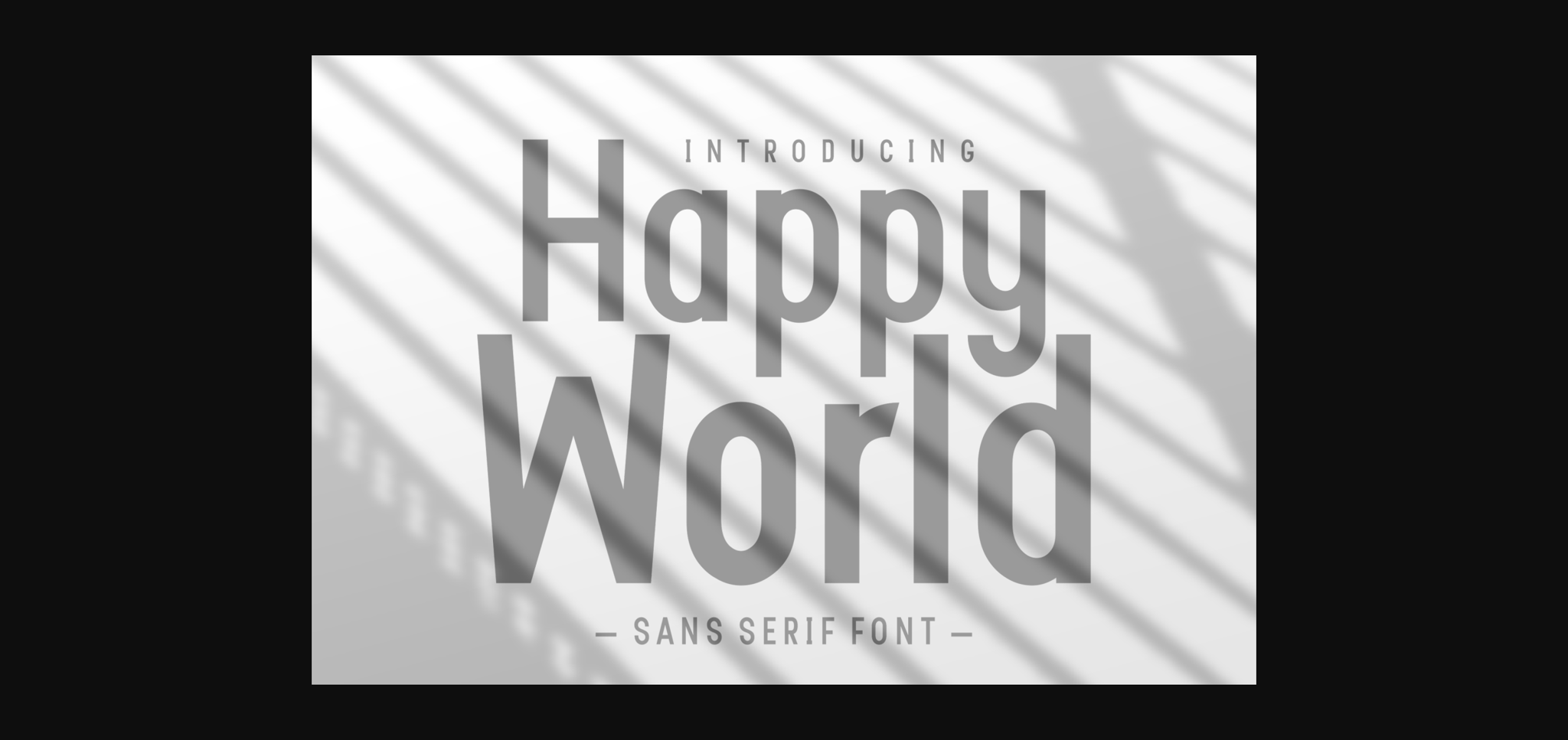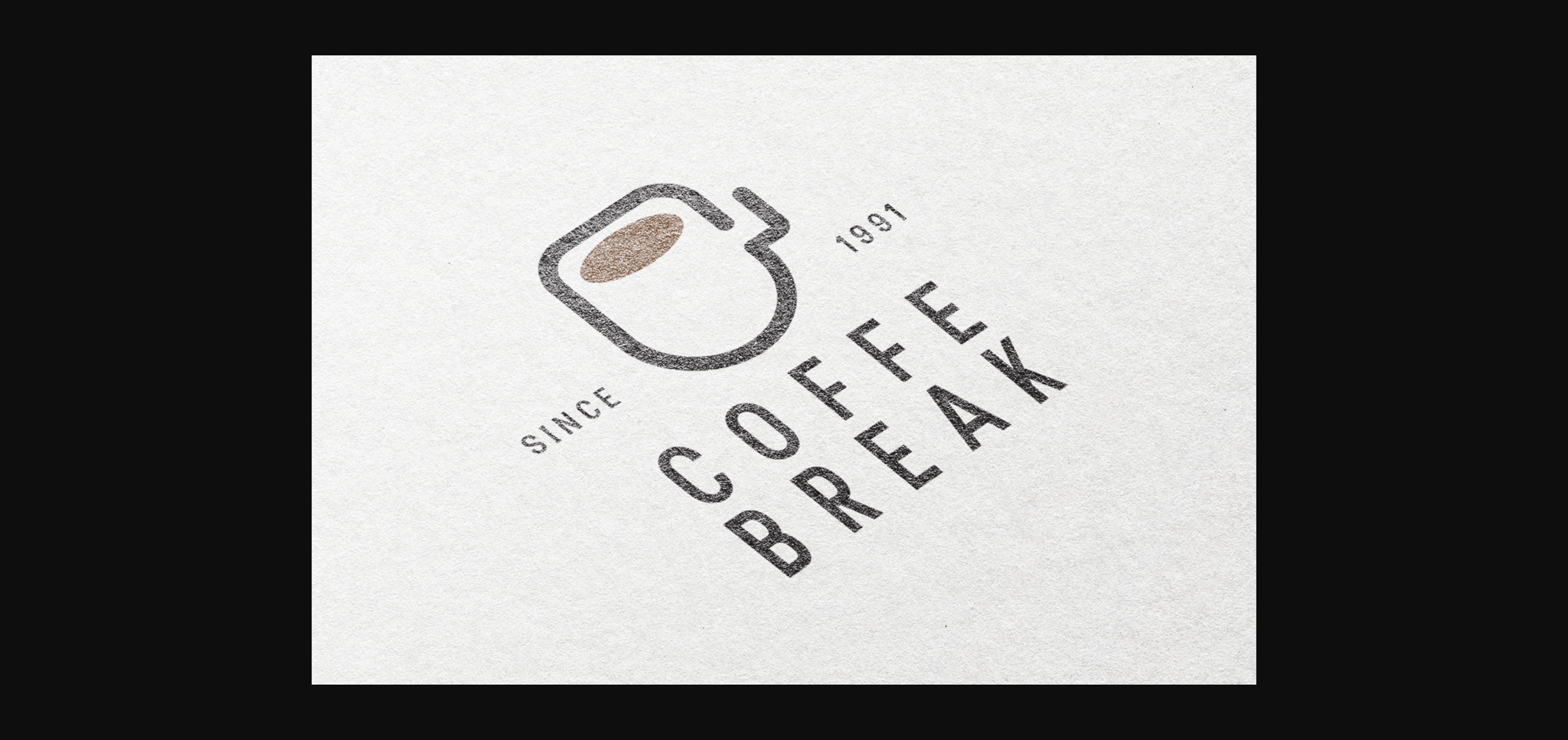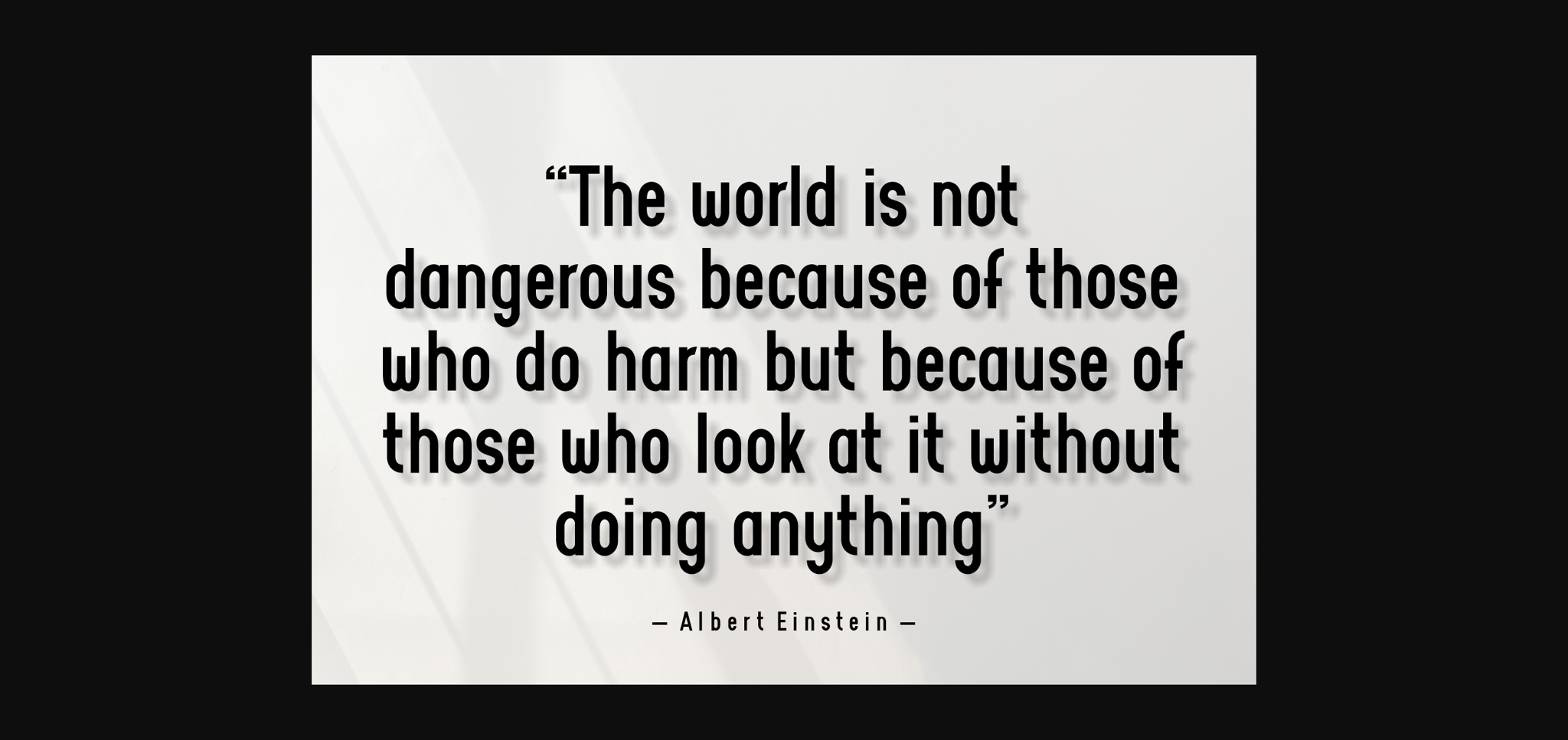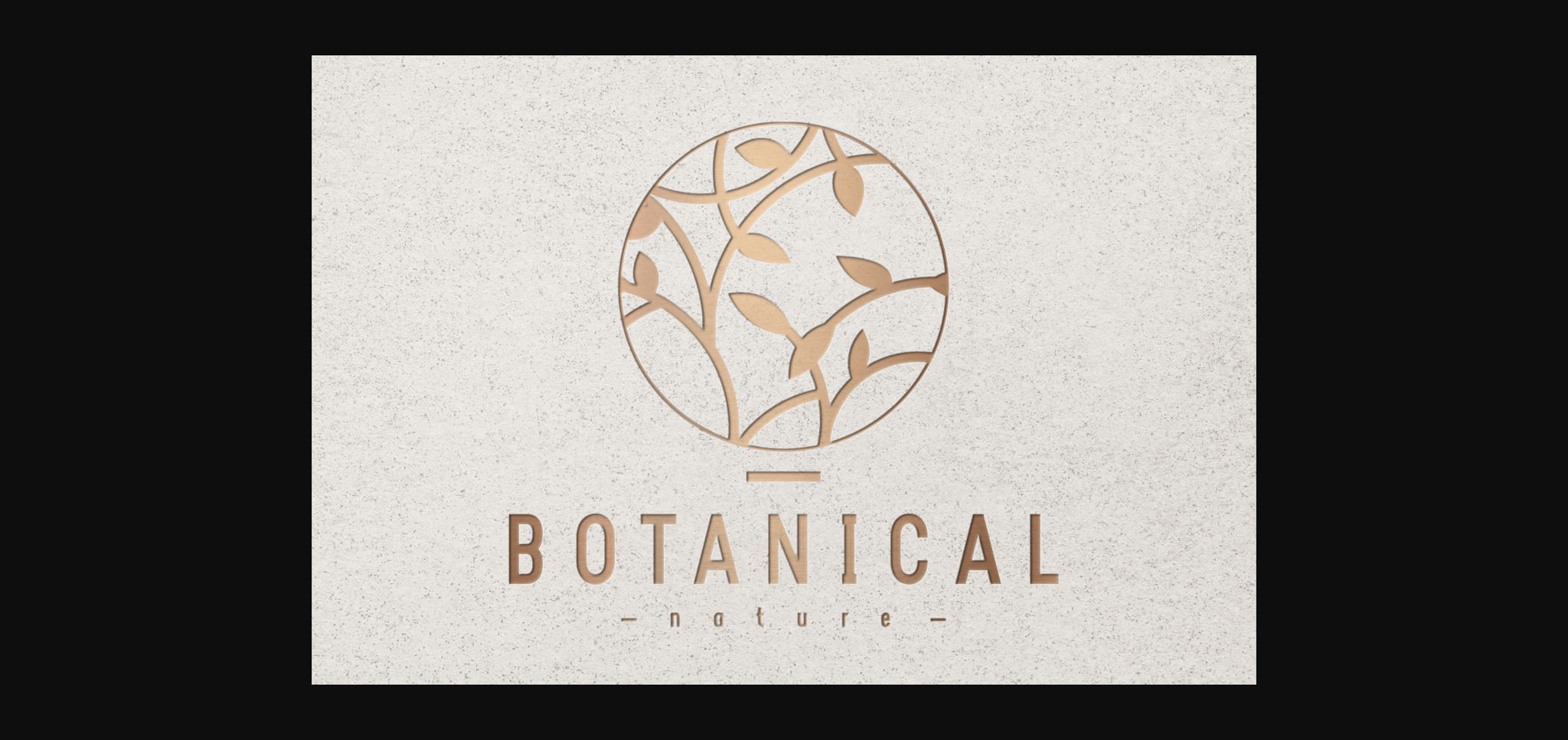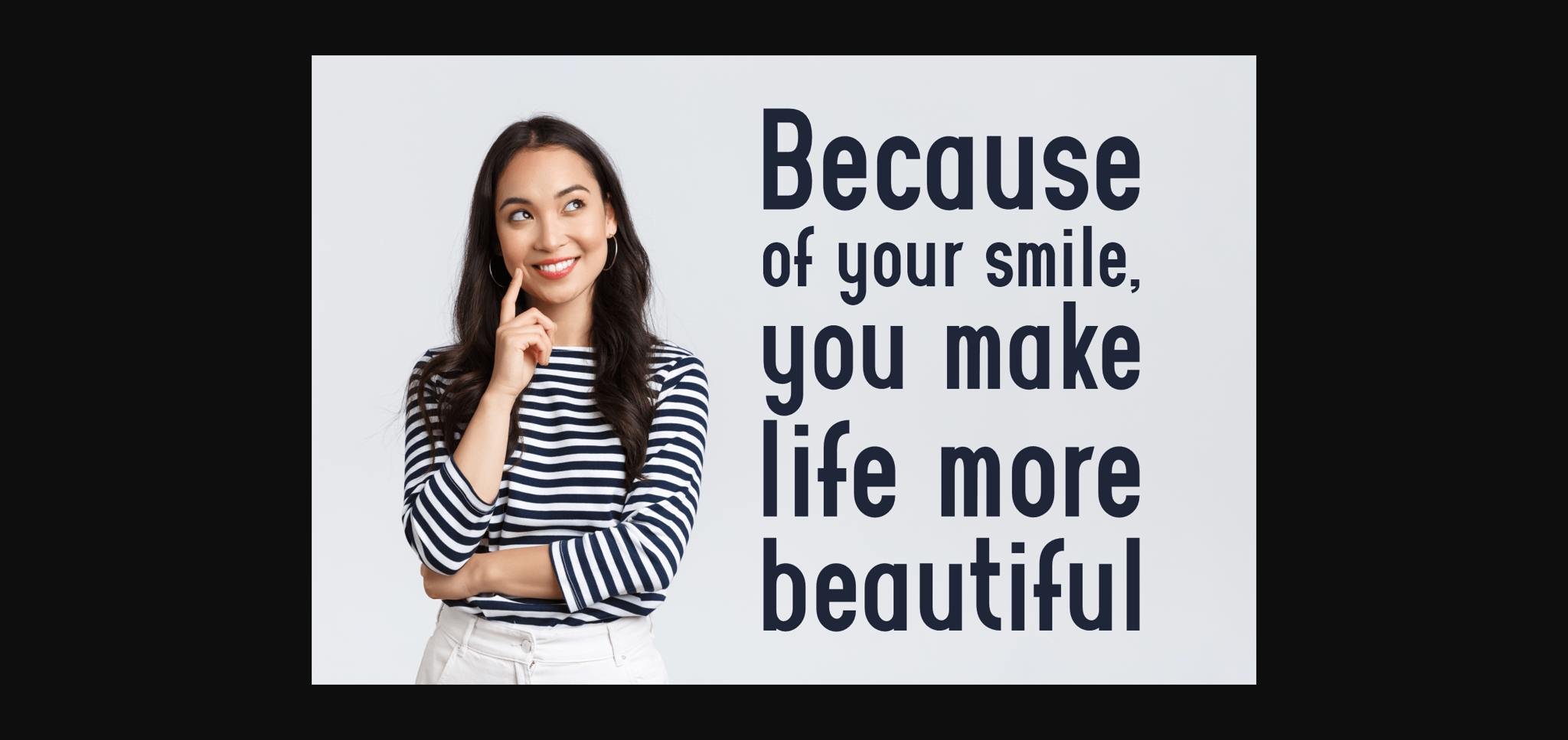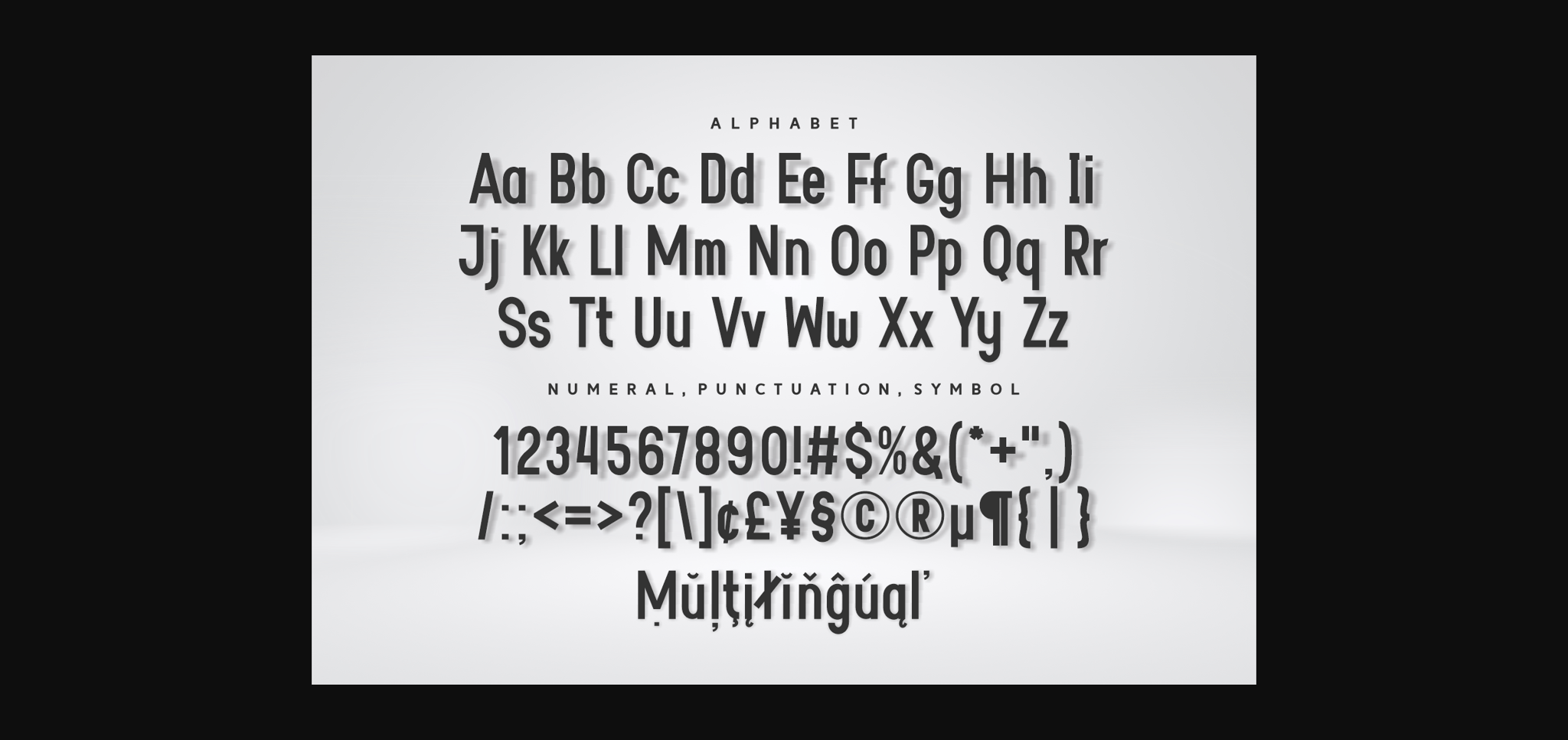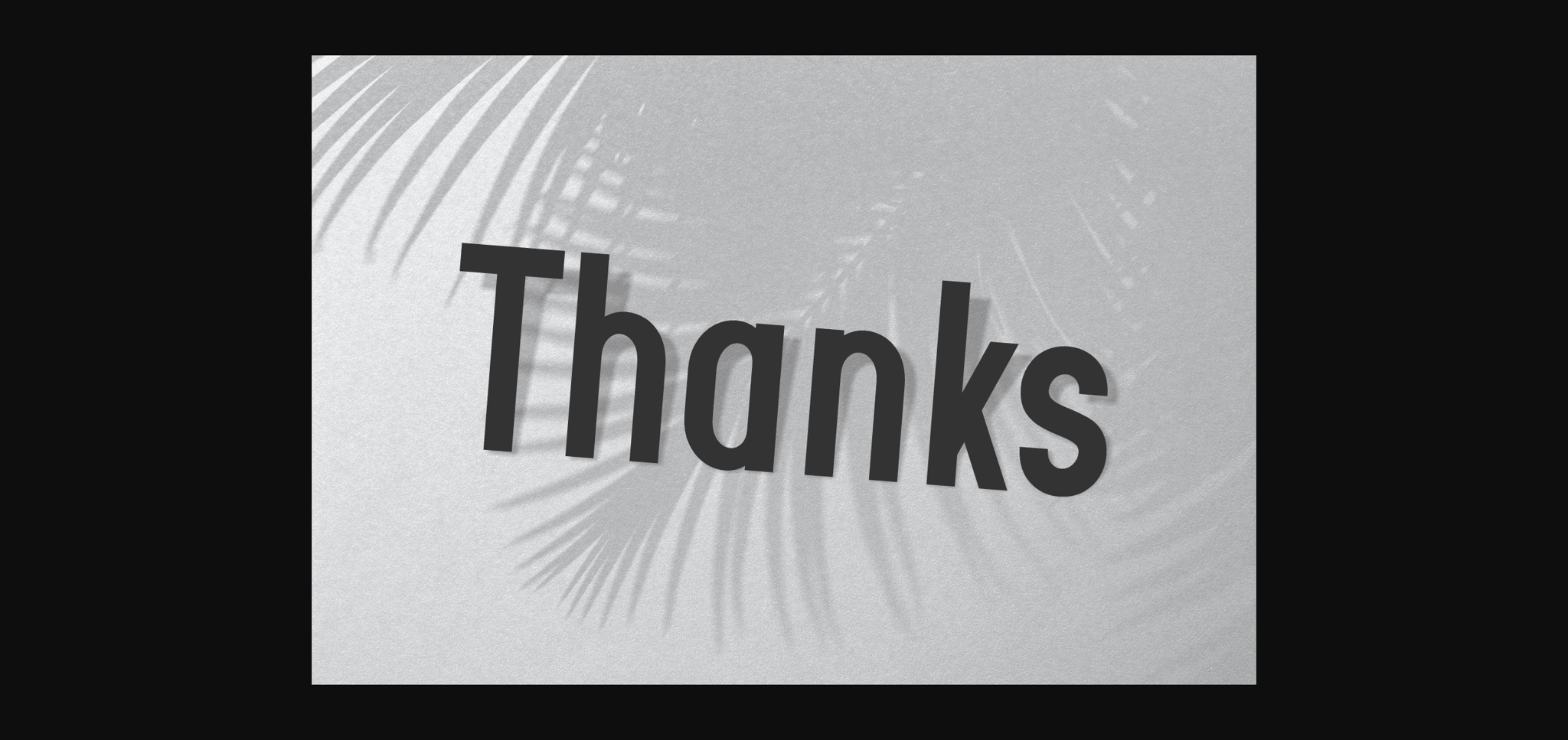
Happy World Font
About Happy World Font
Happy World is a clean and stylish sans serif font. The bold and neat characters make this font the ideal candidate for a wide range of design projects. Use it to express your creative ideas!